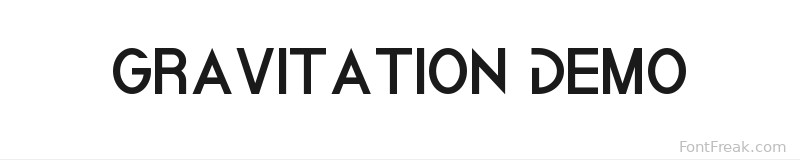
Gravitation Demo
Gravitation Demo, designed by Noah Type, is a striking display font that seamlessly blends modernity with a touch of elegance. This sans-serif typeface features a unique visual style characterized by its bold stroke weight and clean lines, making it an excellent choice for attention-grabbing designs. The font's well-defined letterforms exhibit a balanced contrast, providing both legibility and visual interest, while generous spacing enhances readability, ensuring that each character stands out distinctly.
With its captivating aesthetic, Gravitation Demo is particularly well-suited for a variety of creative applications. Graphic designers can utilize this font for vibrant movie posters, where its boldness can convey excitement and drama. Additionally, small business owners can adopt it for striking restaurant menus, where the modern look can attract diners’ attention. Content creators might find it ideal for social media graphics, where a fresh and contemporary vibe is essential. Furthermore, Gravitation Demo can lend itself beautifully to wedding invitations, offering a stylish yet approachable feel that resonates with couples seeking to make a memorable statement.
Targeting graphic designers, small business owners, and content creators alike, Gravitation Demo font is versatile enough to cater to a wide audience. Its freeware license makes it an accessible option for anyone looking to elevate their design projects without breaking the bank.
What truly sets the Gravitation Demo font apart is its ability to marry style with functionality. Its bold yet clean design ensures it will stand out in any application, making it a valuable addition to any designer’s toolkit. For those seeking a unique typeface that enhances visual impact, the Gravitation Demo font free download is a must-have resource.